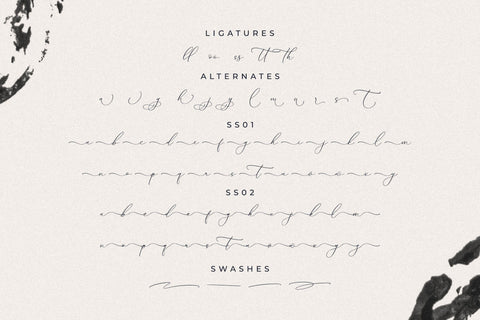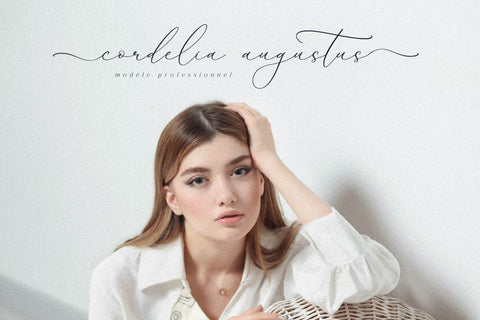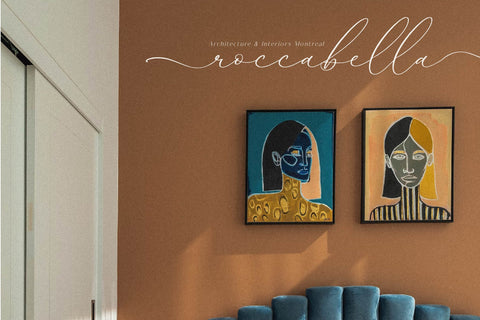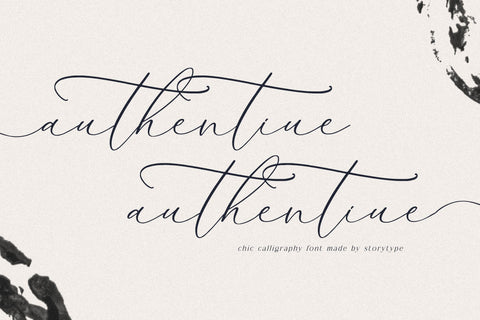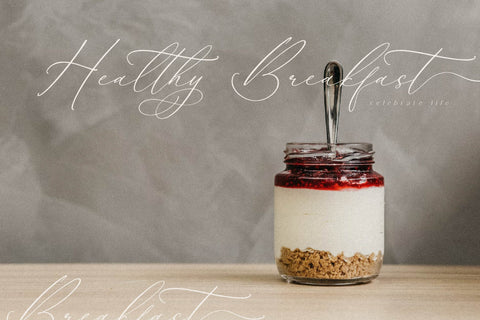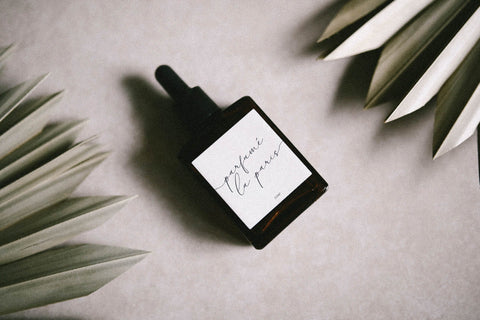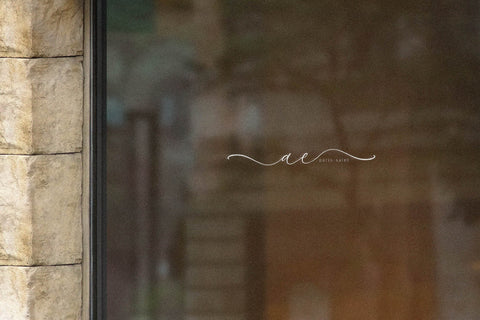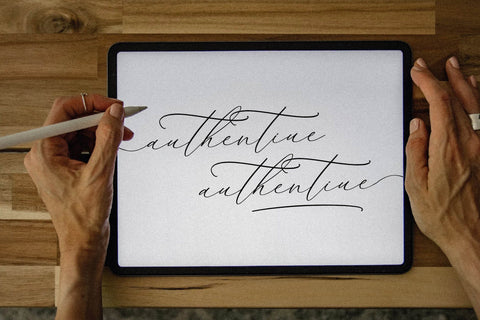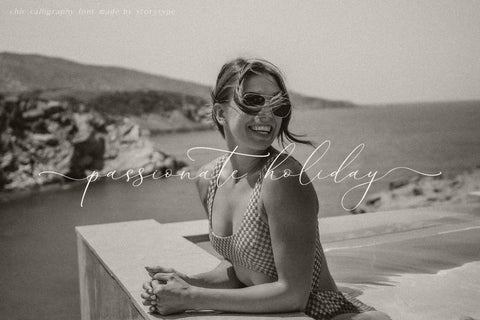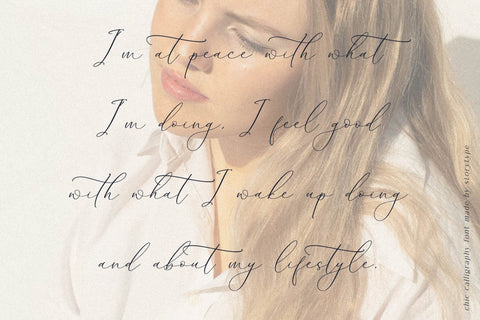
authentiue - Chic Calligraphy Font
Proudly present authentiue - Chic Calligraphy Font , created by Storytype,
A luxury script that has own unique style & modern look.